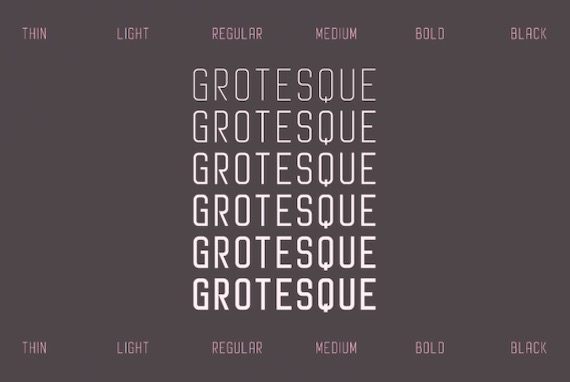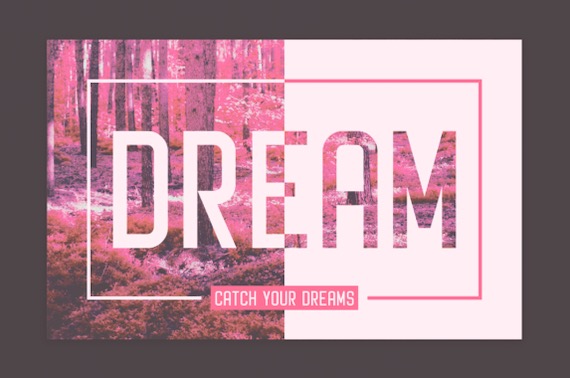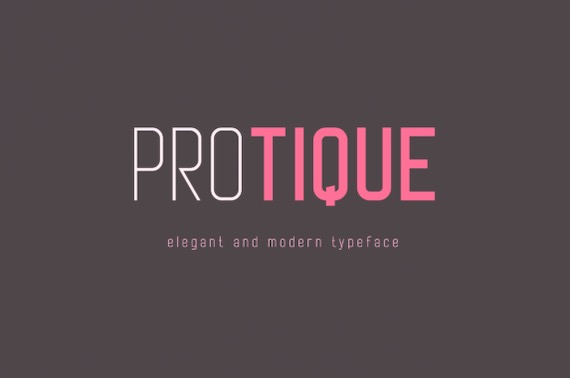
Protique Font is an elegant and classy sans serif typeface that was created and shared by Shanaya Creative. Moreover, this basic font consists of 6 different weights from thin to black. So, it’s a great perfect multi-purpose font. And it captures a huge range for the design and creation of your design.
Protique will perfectly cope with a variety of tasks and he will always look elegant and modern. With it, you can create logos, labels, use in advertising, packaging, branding, book covers and magazines, cosmetics, banners, posters, headings, descriptions and much more.
Protique Sans Serif Font